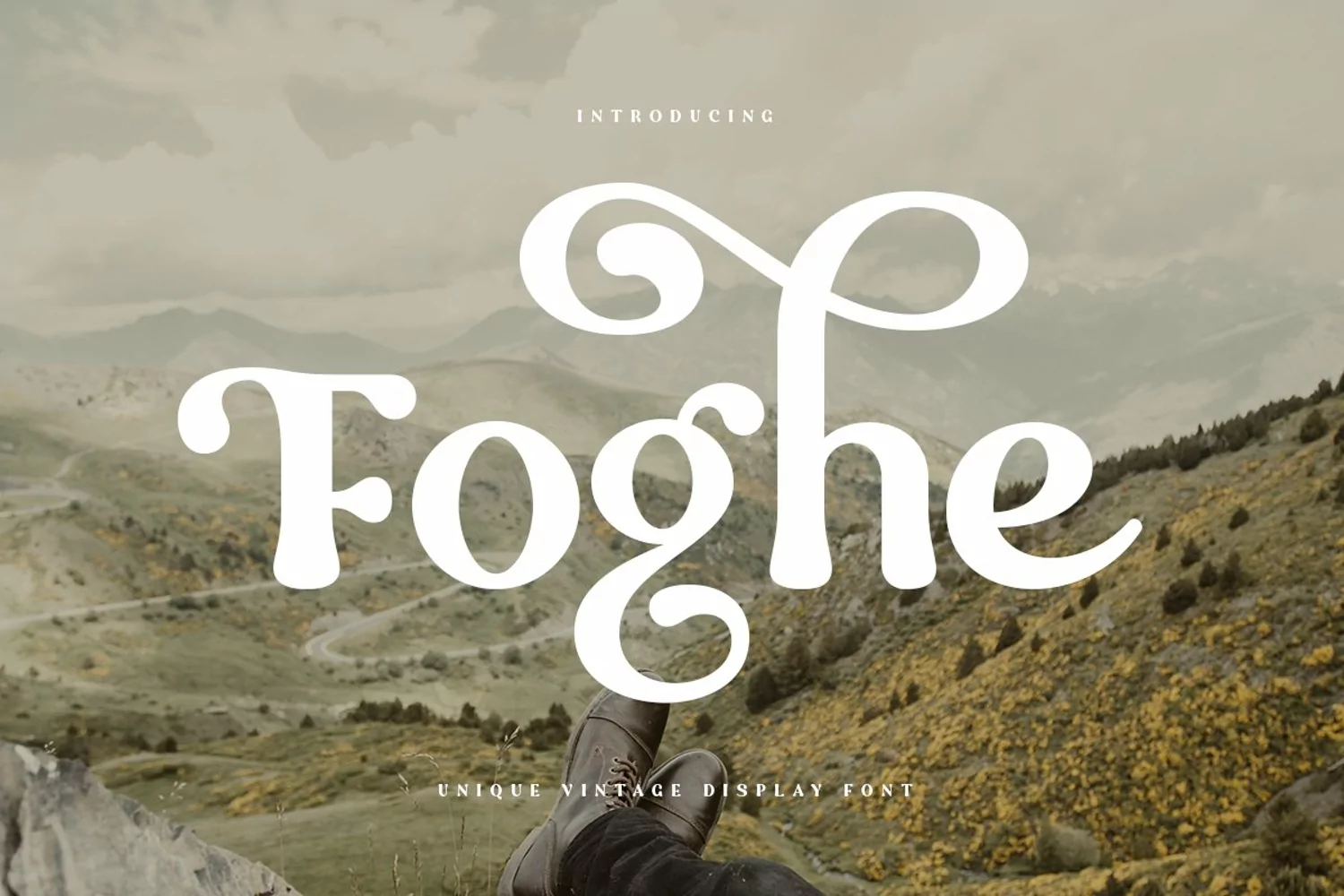
Foghe is an Unique Vintage Display Font
A New Fancy Retro font that we created special for Unique branding needs, with extra alternates in unique style that ready to add value of your brand. It's so nice to leverage designer or product owner that need solutions to make their design look more unique and vintage.